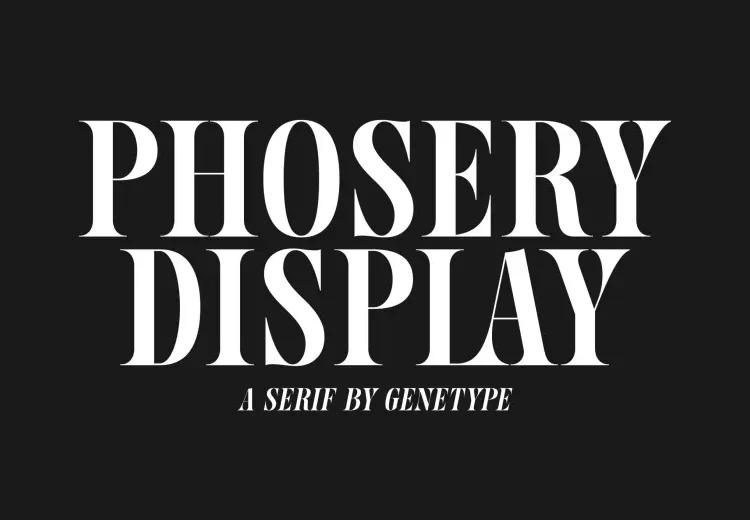
Phosery Display Font
Phosery Display Serif redefines elegance with its meticulously crafted serifs that add a touch of luxury to any design. Perfect for sophisticated branding projects, stationery, and high-end creative endeavors, this font transforms every letter into a work of art. Each character embodies timeless appeal, elevating your designs with a refined, upscale aesthetic.
Whether you’re working on branding, invitations, or any project requiring a touch of class, Phosery Display effortlessly combines luxury and readability. Its striking, elegant appearance ensures that it stands out in any setting, creating an impression that lasts.
Bring a sense of prestige and sophistication to your typography with Phosery Display Serif, and allow this font to captivate your audience with its exquisite charm.